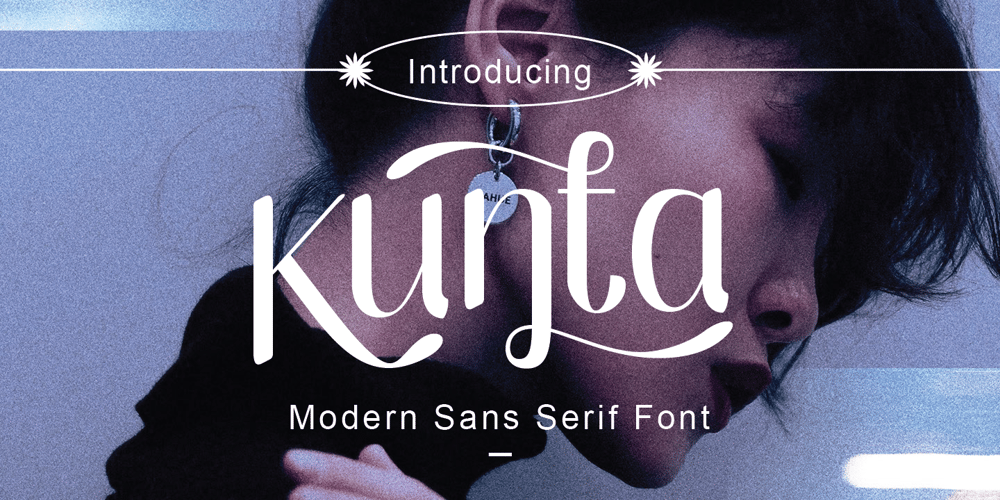
Kunta Font Family was designed by Amri Mauludin and published by ArimaType. Kunta contains 1 styles and family package options. Kunta is a modern vintage serif font packaged in a modern and unique style, complete with access to your OpenType feature to access a large selection of alternative fonts and binders, choose the font you like from a variety of uppercase and lowercase letters to get a luxurious and elegant look.A quirky, fun, and versatile serif series with lots of ligatures and alternatives to spice up any design you fancy. This font is perfect for branding projects, Logo designs, Clothing Branding, packaging, magazine titles, advertisements, T-shirts, postcards and many more.